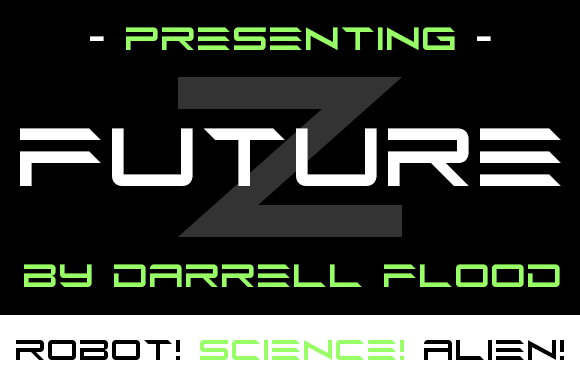
Introducing Future Z Font: The Ultimate Choice for Sci-Fi and High-Tech Themes
In the world of typography, fonts play a crucial role in conveying the tone and aesthetic of a design. For designers and crafters looking to create futuristic and high-tech themes, the right font can make all the difference. This is where Future Z Font comes in – a cutting-edge display font that seamlessly blends curves and sharp edges to create a visually stunning and cohesive look.
What is Future Z Font?
Future Z Font is a futuristic display font designed to elevate your designs to the next level. Its unique combination of smooth curves and sharp edges creates a pleasing form that is both modern and edgy. This font is perfect for a wide range of applications, from science fiction and high-tech themes to gaming and tech-related projects.
Key Features of Future Z Font
- Unique Blend of Curves and Sharp Edges: Future Z Font boasts a distinctive design that sets it apart from other fonts. Its curves and sharp edges work together in harmony to create a futuristic look that is both sleek and sophisticated.
- Highly Versatile: Whether you’re working on a science fiction movie poster, a high-tech website, or a gaming project, Future Z Font is the perfect choice. Its versatility ensures that it can be used in a wide range of applications.
- Easily Readable: Despite its futuristic design, Future Z Font is surprisingly easy to read. This makes it an excellent choice for headlines, titles, and other display text.
- Scalable: Future Z Font is designed to look great at any size. Whether you’re working on a large billboard or a small business card, this font will maintain its integrity and visual appeal.
Who Can Benefit from Future Z Font?
Future Z Font is an excellent choice for a wide range of designers and crafters, including:
- Graphic Designers: If you’re working on a project that requires a futuristic or high-tech look, Future Z Font is an excellent choice.
- UI/UX Designers: This font is perfect for creating modern and sleek user interfaces that require a high-tech aesthetic.
- Game Developers: Future Z Font is an excellent choice for game developers looking to create a futuristic or sci-fi game.
- Crafters and Makers: If you’re creating handmade products or DIY projects that require a modern and edgy look, Future Z Font is a great choice.
How to Use Future Z Font
Future Z Font is a game-changing display font that is perfect for designers and crafters looking to create futuristic and high-tech themes. Its unique blend of curves and sharp edges creates a visually stunning and cohesive look that is sure to elevate your designs to the next level. With its versatility, readability, and scalability, Future Z Font is an excellent choice for a wide range of applications. So why wait? Download Future Z Font today and start creating stunning designs that are out of this world!